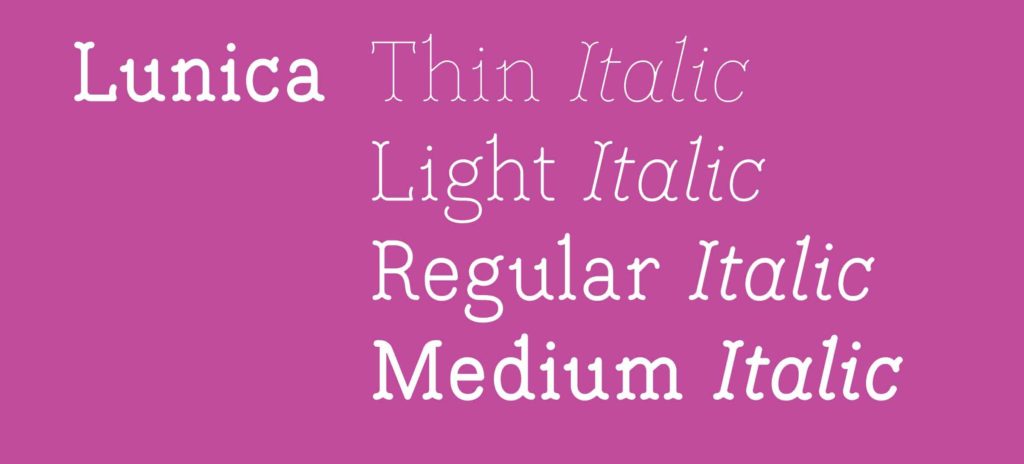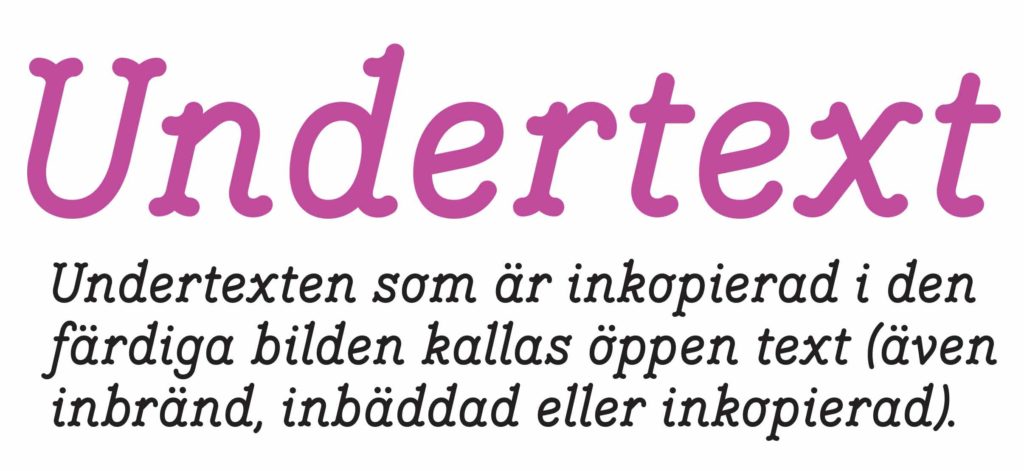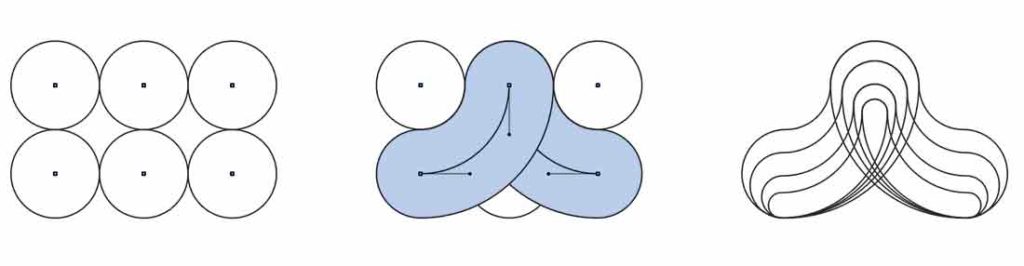
Name: Lunica
Designer: Thomas Hirter
Foundry: Gestalten
Release Date: 2016
Back story: Hirter began developing Lunica in 2006 while living in Stockholm. He was inspired by cinema subtitles, which at the time were often set in a basic sans serif stencil typeface: single line weight, round endings, and no contrast. Hirter wanted to maintain the simplicity but add embellished serifs to match the charm of the Swedish language. His slightly abstracted serifs feature a geometric quarter circle attached to most of the line endings, lending the typeface an organic, handwritten feel.
Why’s it called Lunica? “The name Lunica makes a funny connection to the 1980 grotesque classic Unica,” says Hirter. “The two are as different as they can be, but there’s a similarity in their straightforward letterforms.”
What are its distinguishing characteristics? Despite ornamental gingerbread-house serifs and quirky ligatures that add a quaint, poetic character to the overall typeface, Lunica is surprisingly legible at small sizes. A mono-linear interpretation of a serif typeface, Lunica disregards the laws of optics: apart from the slight overshoot of its round glyphs, no optical corrections were made in designing the characters.
What should I use it for? “As a font, Lunica is quite hard to handle. The character is so specific that it limits where and when the font is applicable—I admit that I haven’t used it much myself,” Hirter says. “With its round forms and few straight lines or orientation points, it’s quite hard to find a suitable use. Nevertheless, I get a lot of positive feedback. People like Lunica, and are waiting for opportunities to work with it.” Anyone up for a challenge?
Who’s it friends with? Of course, Unica. You could try something tough like Tungsten to provide some contrast, or match it with a typeface that has just a hint of its own exuberance, like Maar Sans.